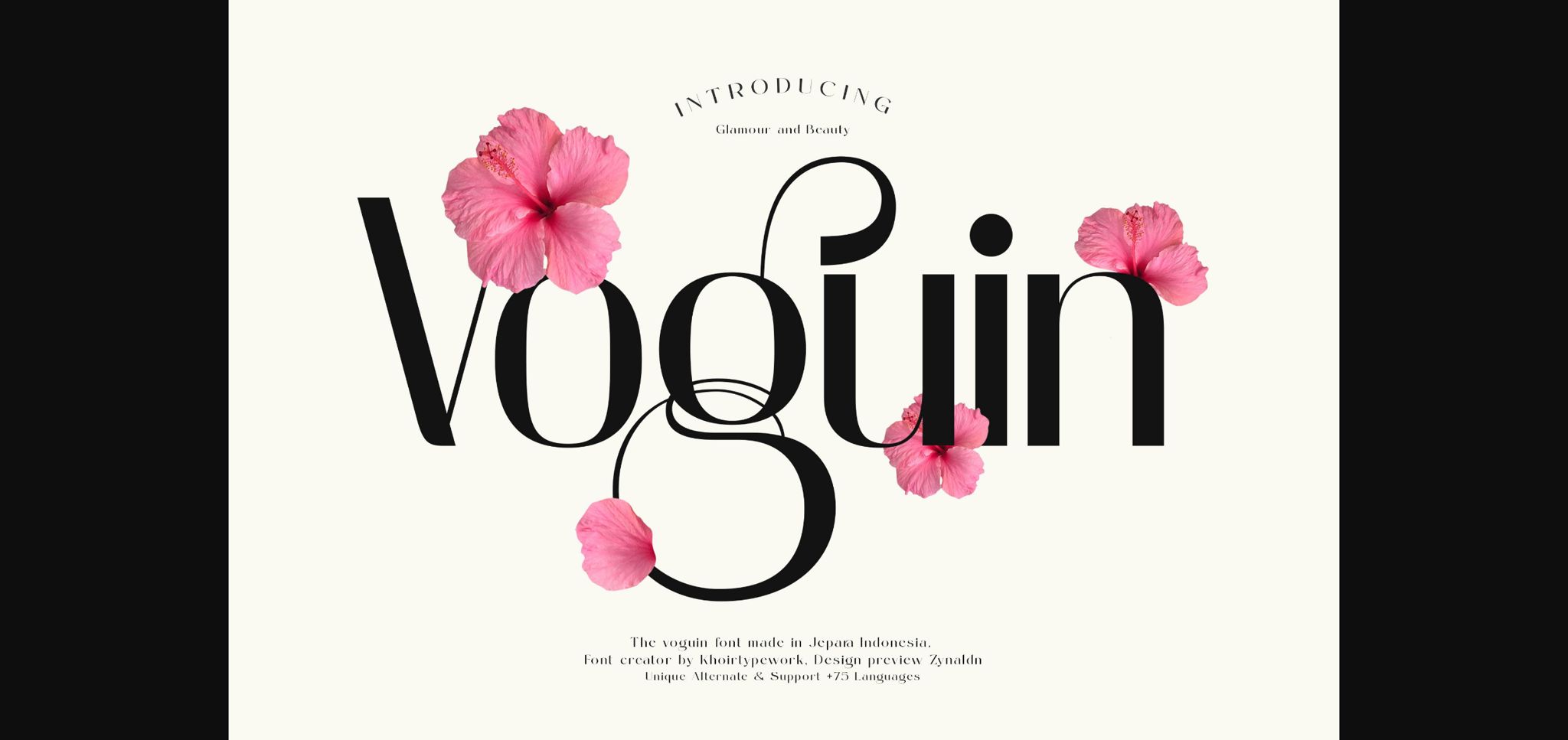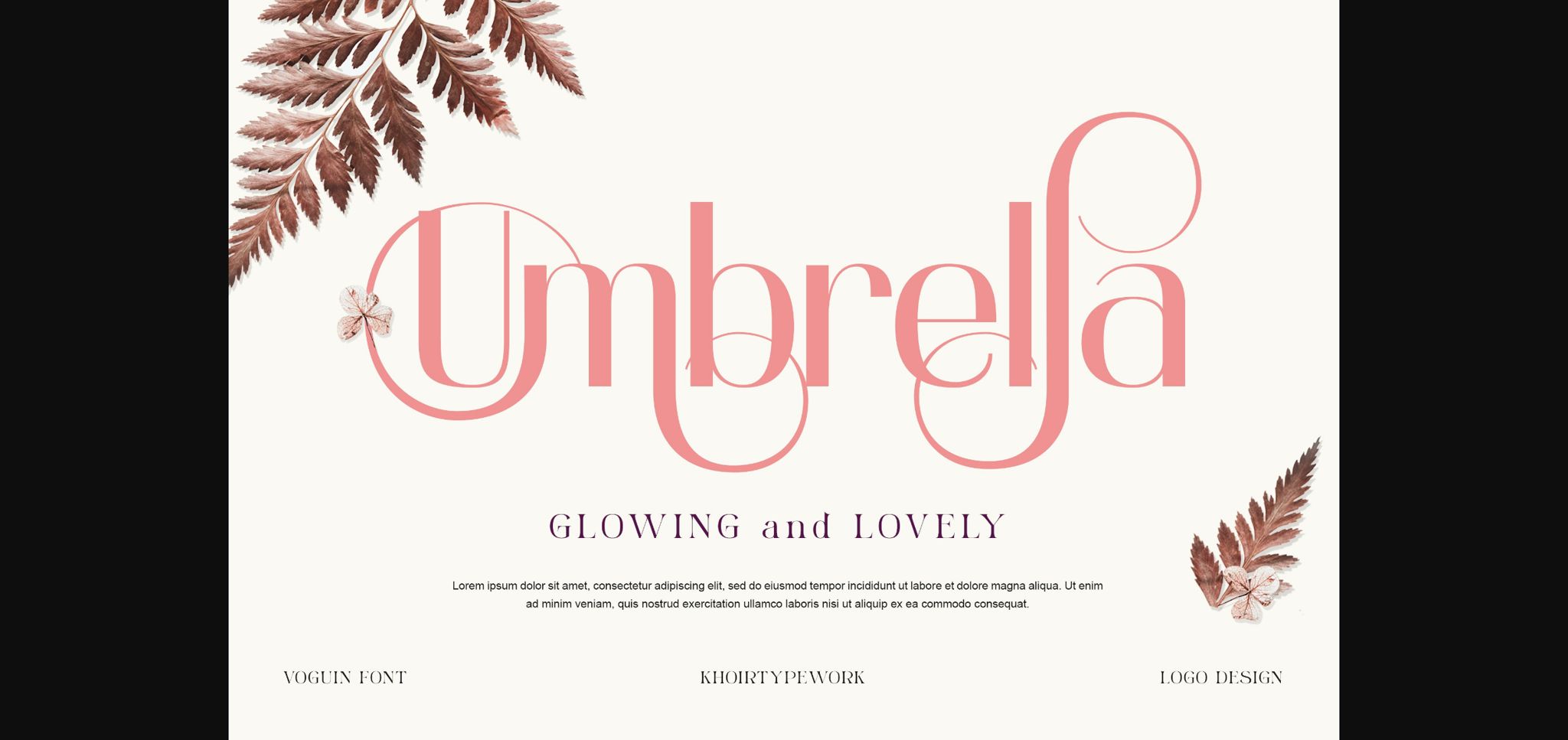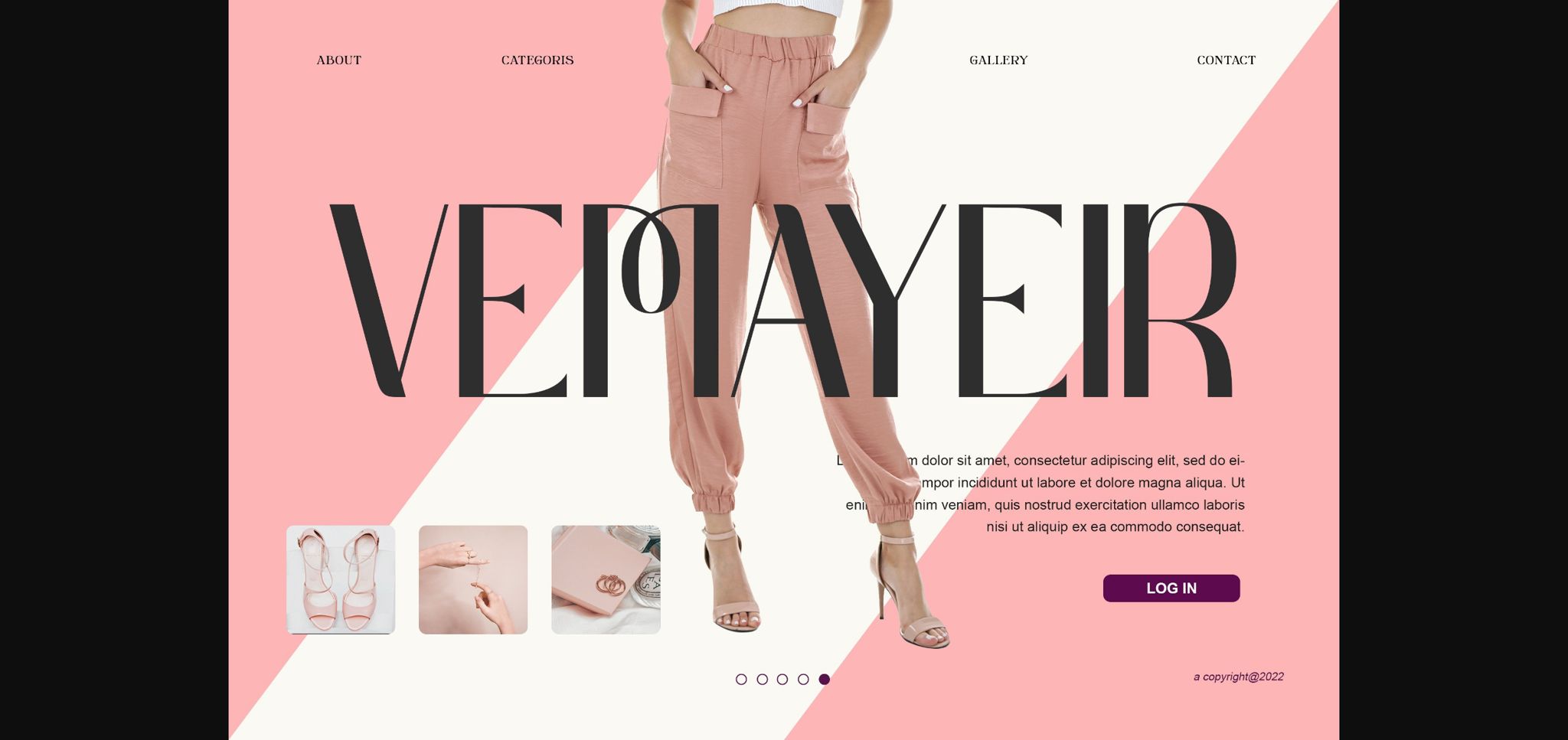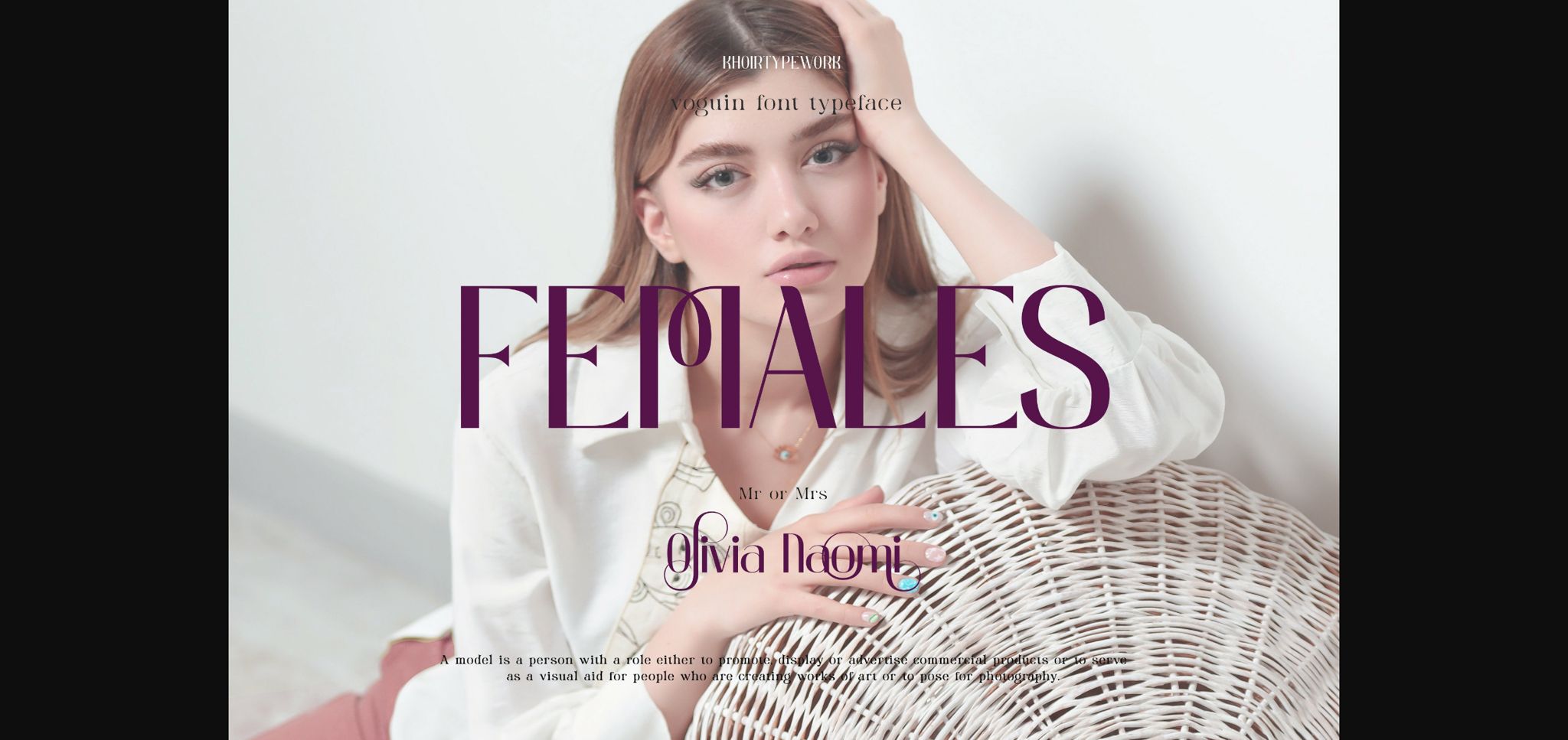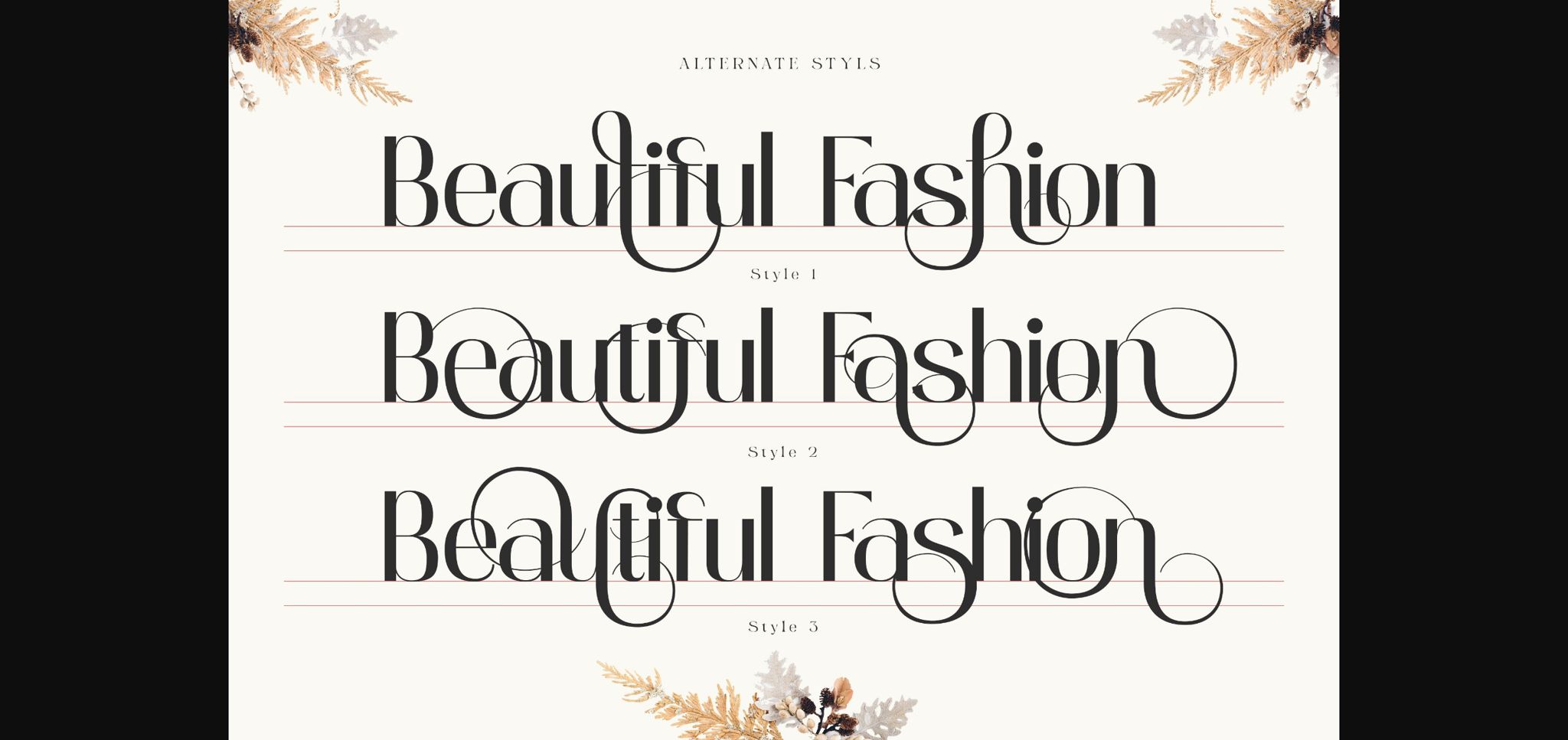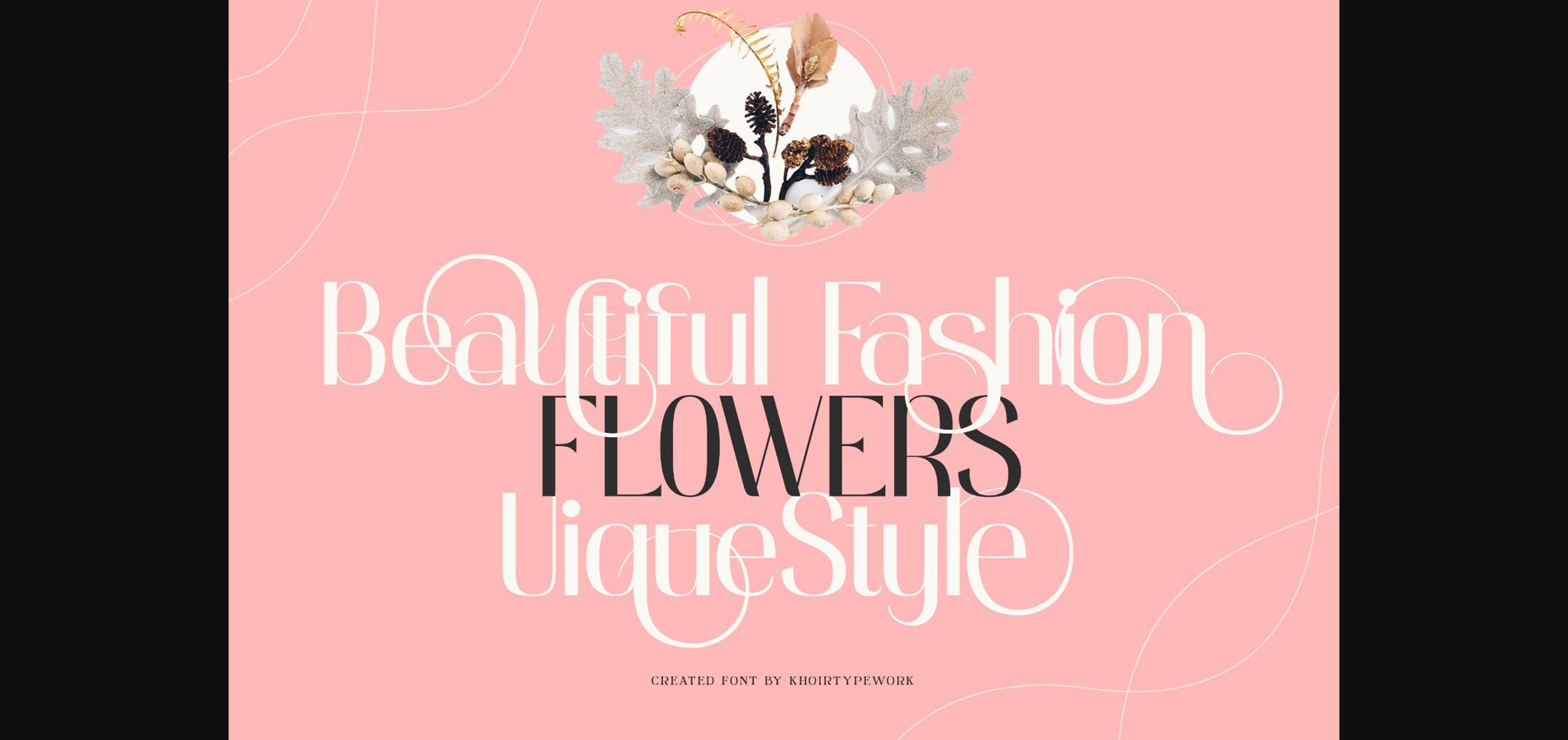
Voguin Font
About Voguin Font
Voguin is a graceful and elegant sans serif font. Stylish, fashionable, and chic this typeface is perfect for creating unique logos, branding materials, eye-catching social media posts, or anything that requires a sophisticated look.
This font is PUA encoded which means you can access all the glyphs and ligatures with ease!